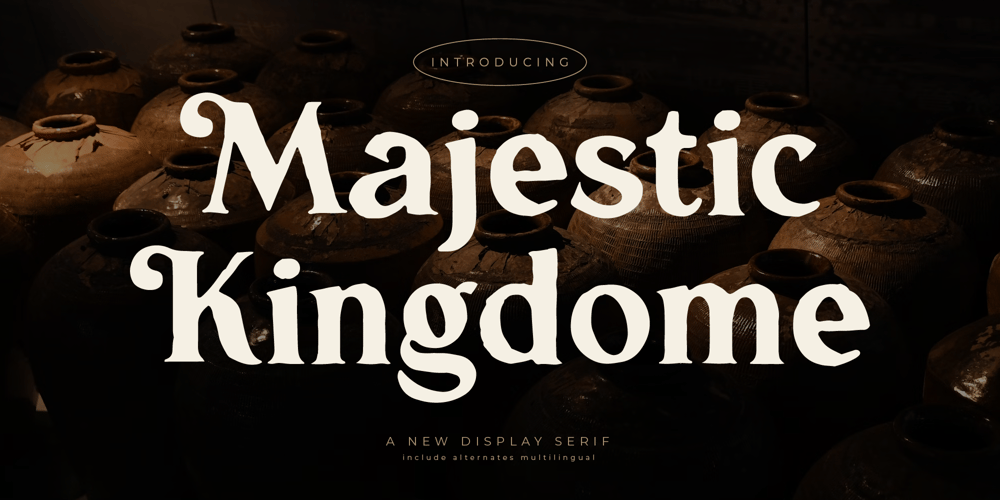
Majestic Kingdome
Majestic Kingdome font
Majestic Kingdome Font Family was designed by Heru Utama Putra and published by Letterena Studios. Majestic Kingdome contains 2 styles and family package options. Majestic Kingdome is a modern and stylish serif font. Add it confidently to your projects and enjoy the results!